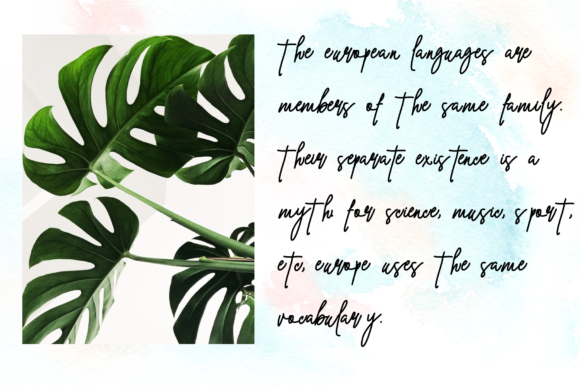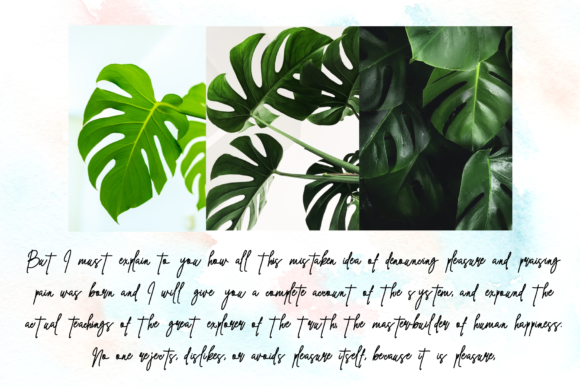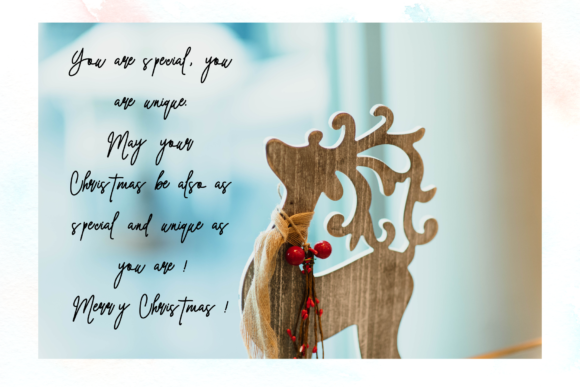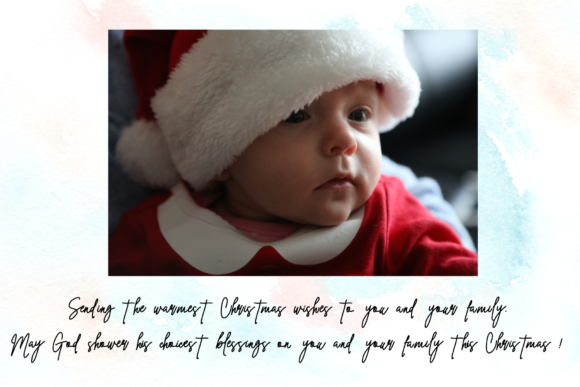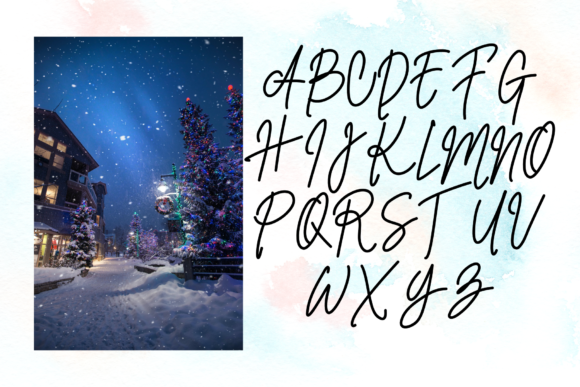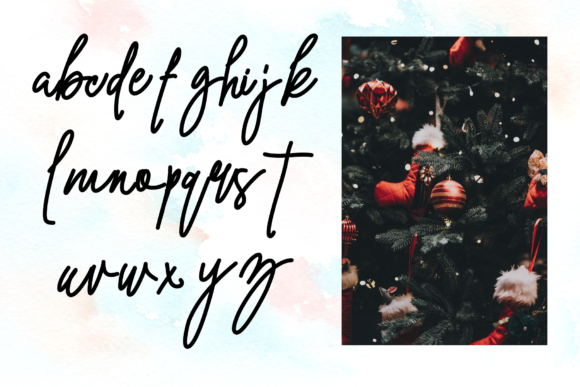
Get Ready to Deck the Halls with the Christmas Font
As I sat at my crafting table, surrounded by glitter and garlands, I had that magical moment of inspiration – the kind that makes you excited to create. I wanted my Christmas projects to feel personal, special, and uniquely mine. That’s when I stumbled upon the Christmas Font, a beautiful handwritten font that instantly captured the essence of the holiday season.
The Christmas Font is a treasure trove of festive flair, designed to add a touch of warmth and whimsy to your crafting projects. Whether you’re creating handmade cards, gift tags, or decorations, this font is the perfect companion to help you bring your ideas to life.
For designers, the Christmas Font is a valuable asset, offering a unique and versatile tool to elevate their holiday designs. With its elegant, cursive script, it’s the perfect choice for adding a personal touch to your projects, making it a must-have for any creative enthusiast.
Key Features of Christmas Font
- Font Style: A festive and playful font, ideal for holiday-themed designs and projects.
- Character Set: Supports a wide range of characters, including uppercase and lowercase letters, numbers, and punctuation marks.
- Unique Characteristics: Features a distinctive, hand-drawn design with intricate details and ornaments, adding a touch of whimsy to any project.
Review: Christmas Font
As a designer, I was excited to dive into the Christmas Font and see what it had to offer. ✨ The font’s playful and festive vibe immediately caught my attention, and I can see it being a great fit for holiday-themed projects. The font’s versatility is also a major plus, as it can be used for a variety of applications, from social media graphics to greeting cards.
Here are some of the things that work well about the Christmas Font:
- ✨ Unique and festive design
- ✨ Versatile and suitable for various applications
- ✨ High-quality and well-designed
However, I do have a few concerns about the font’s limitations:
- ⚠️ Limited character set and customization options
- ⚠️ May not be suitable for formal or professional projects
- ⚠️ May not be as accessible for users with certain font preferences
Overall, I think the Christmas Font is a solid choice for holiday-themed projects, but it may not be the best fit for more formal or professional projects. With a bit more development and expansion of its character set and customization options, I think this font has the potential to be a real showstopper.
Christmas Font is commonly used in:
Christmas card designs.
Holiday party invitations.
Winter-themed social media posts.
Christmas gift tags or wrapping paper designs.